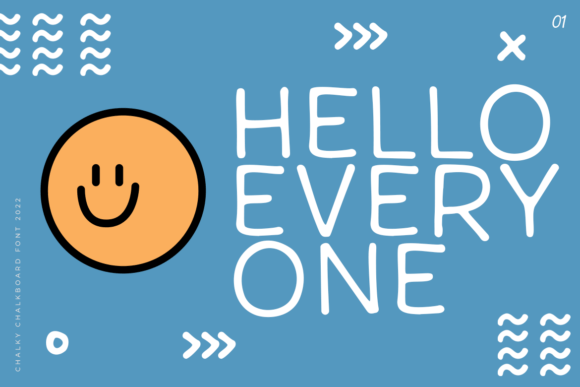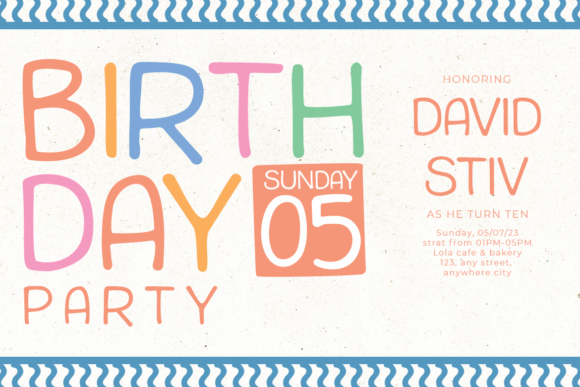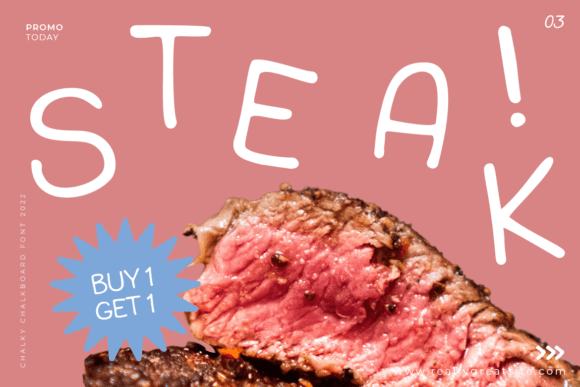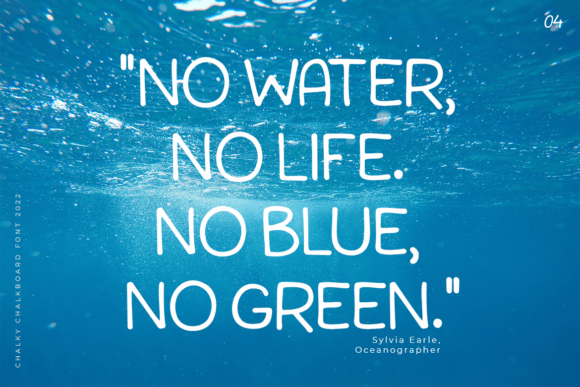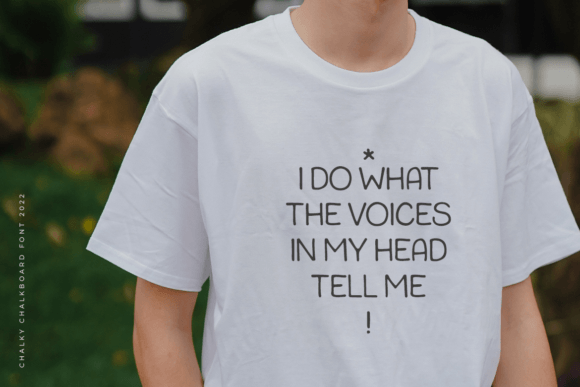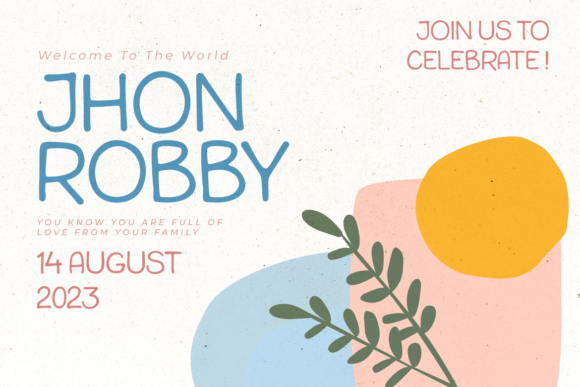
Introducing Chalky Chalkboard Font: Elevate Your Designs with a Touch of Whimsy
Are you on the lookout for a font that can add a dash of playfulness and sophistication to your creative projects? Look no further than Chalky Chalkboard, a versatile and stylish handwritten font that’s perfect for a wide range of applications. From greeting cards to headlines, and many more, this exquisite font is sure to leave a lasting impression.
The Charm of Chalky Chalkboard
Chalky Chalkboard is a beautifully crafted font that boasts a unique, chalkboard-inspired aesthetic. Its clean lines, smooth curves, and subtle imperfections evoke the feeling of handwritten chalk on a blackboard. This font’s charm lies in its ability to convey a sense of nostalgia and playfulness, making it an excellent choice for designers and crafters looking to add a touch of whimsy to their work.
One of the standout features of Chalky Chalkboard is its incredible versatility. This font can be used in a variety of contexts, from:
- Greeting cards: Add a personal touch to your cards with Chalky Chalkboard’s elegant, handwritten script.
- Headlines: Make your headlines pop with this font’s bold, eye-catching style.
- Signage: Create eye-catching signs and posters that are sure to grab attention.
- Branding: Use Chalky Chalkboard to add a touch of personality to your brand’s identity.
- Digital media: Incorporate this font into your social media graphics, blog posts, and more to add a dash of creativity.
Why Choose Chalky Chalkboard?
So, what sets Chalky Chalkboard apart from other fonts? Here are just a few reasons why designers and crafters love this font:
- Unique aesthetic: Chalky Chalkboard’s chalkboard-inspired design is unlike anything else on the market.
- Highly legible: Despite its playful nature, this font remains highly legible, even at smaller sizes.
- Timeless appeal: This font’s classic aesthetic ensures it will remain relevant for years to come.
Tips for Using Chalky Chalkboard
To get the most out of Chalky Chalkboard, here are a few tips to keep in mind:
- Experiment with colors: Chalky Chalkboard looks stunning in a range of colors, from bright and bold to soft and pastel.
- Mix and match: Combine Chalky Chalkboard with other fonts to create visually interesting and dynamic designs.
- Pay attention to size: While Chalky Chalkboard is highly legible, it’s essential to adjust the font size according to the context in which it’s being used.
In conclusion, Chalky Chalkboard is an exceptional font that offers a perfect blend of style, playfulness, and versatility. Whether you’re a designer, crafter, or simply someone looking to add a touch of personality to your creative projects, this font is sure to impress. With its unique aesthetic, high legibility, and ease of use, Chalky Chalkboard is an excellent addition to any design toolkit.
Get Creative with Chalky Chalkboard